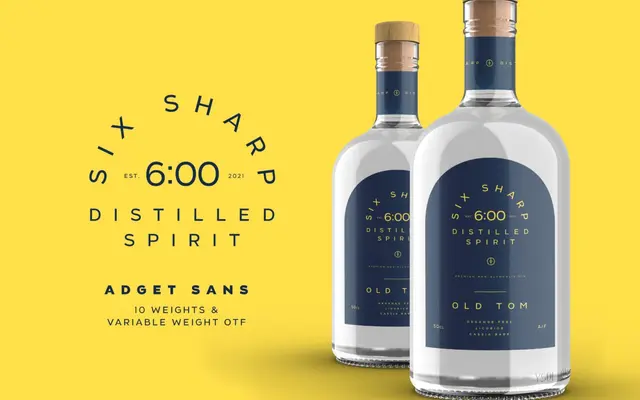
Adget Sans
A geometric grotesque with ten weights and a variable font file, aimed at display and titling use.
Ten static weights plus a variable weight font make up this geometric grotesque, covering 328 glyphs with upper and lowercase, European characters, ligatures and stylistic alternates. The design draws on classic geometric grotesque conventions, favouring clean lines and generous curves for use in headings and portfolio work. A standard desktop licence is included at the base price.
Described by the foundry as inspired by classic geometric grotesque typefaces, with clean lines and large curves consistent with that genre.